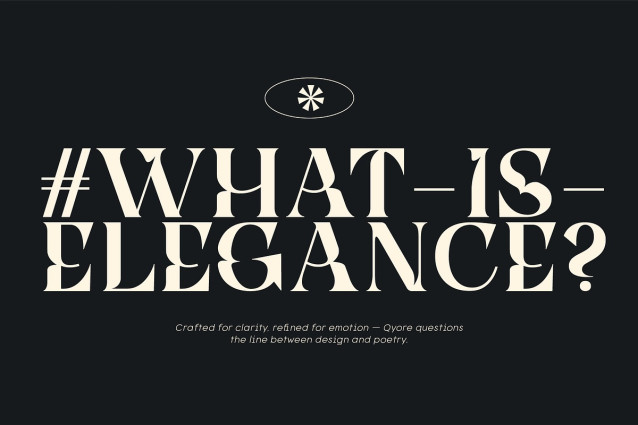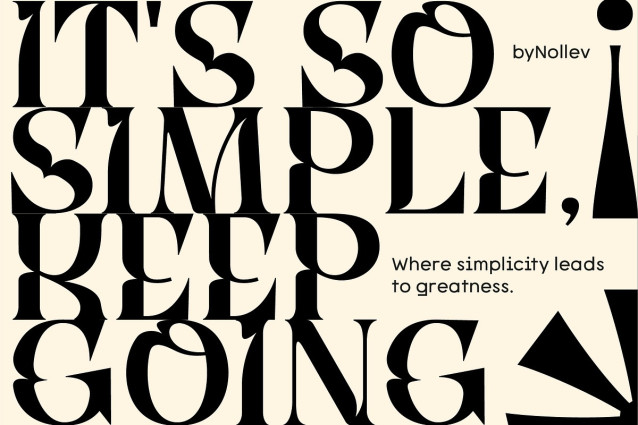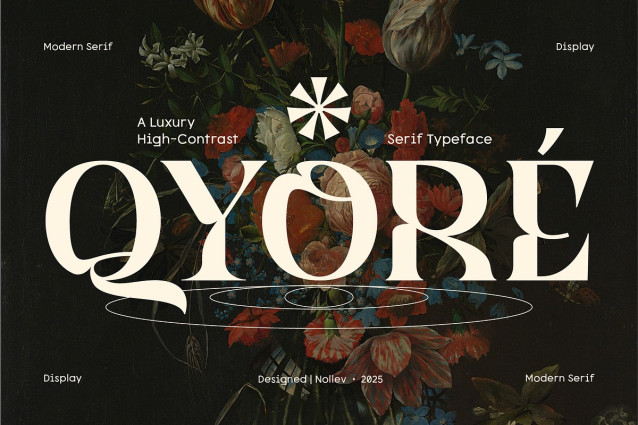
Qyore Font
Qyore Font is a modern high-contrast serif typeface that blends classic elegance with bold, contemporary flair. Designed for those who want to make a statement, Qyore is ideal for premium branding, editorial layouts, packaging, and high-end creative projects.